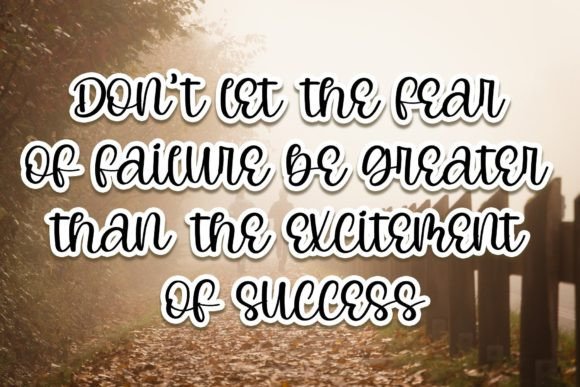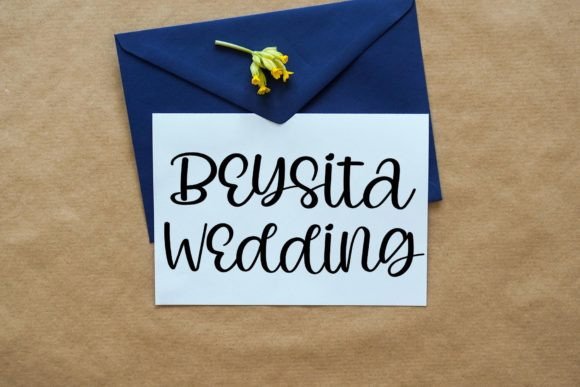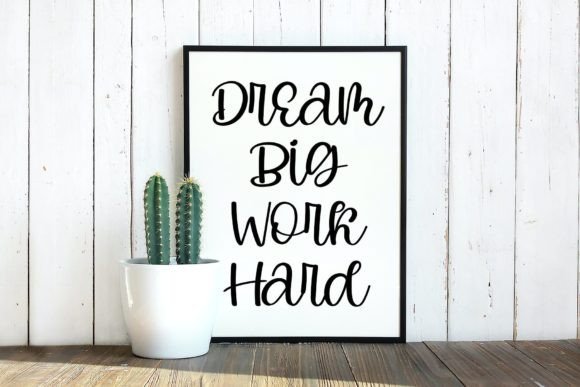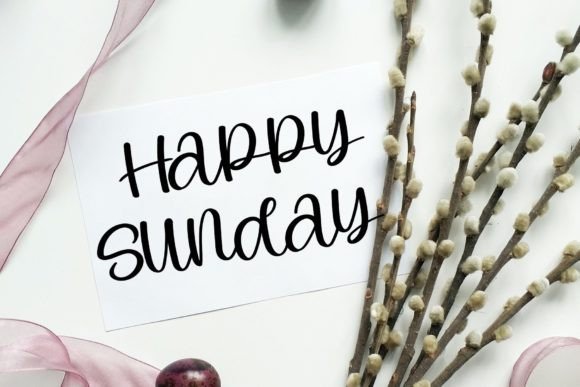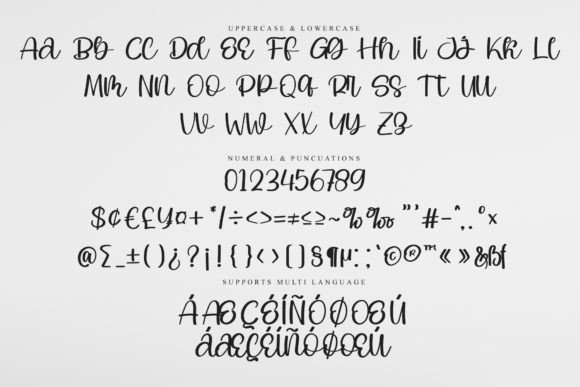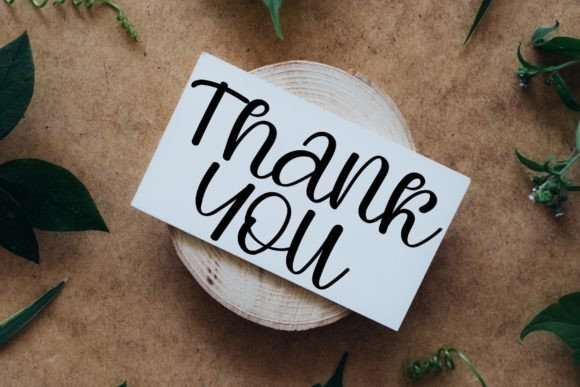
Spring Alone Font
About Spring Alone Font
Spring Alone is an exquisite script font that combines elegance with a contemporary touch, featuring impeccable form and drawing inspiration from timeless classic calligraphy. Its balanced strokes, neither too thin nor too thick, add a touch of sophistication to your projects, enhancing their overall beauty and appeal.
The font’s graceful letterforms and refined aesthetics make it a perfect choice for a wide range of design applications, including wedding invitations, branding, logos, advertisements, product packaging, quotes, and more. Spring Alone’s versatility allows it to adapt seamlessly to various creative projects, providing an elegant and polished look.
One of the notable features of Spring Alone is its PUA encoding, which grants you easy access to all glyphs and swashes. This flexibility empowers you to customize and personalize your designs, allowing for creative freedom and endless possibilities. With access to a variety of glyphs and swashes, you can create unique and visually stunning compositions tailored to your specific needs.
Incorporating Spring Alone into your projects elevates them with an air of sophistication and timeless beauty. Its elegant script style adds a touch of class, making your designs visually appealing and captivating. Whether you’re working on formal invitations, high-end branding, or delicate quotes, Spring Alone’s contemporary yet classic calligraphy-inspired design enhances the overall aesthetic, leaving a lasting impression on your audience.
Embrace the elegance and versatility of Spring Alone, and let it enhance the beauty of your projects. Its impeccable form and PUA encoding provide you with the tools to create stunning and personalized designs, making your creative endeavors truly stand out with grace and refinement.